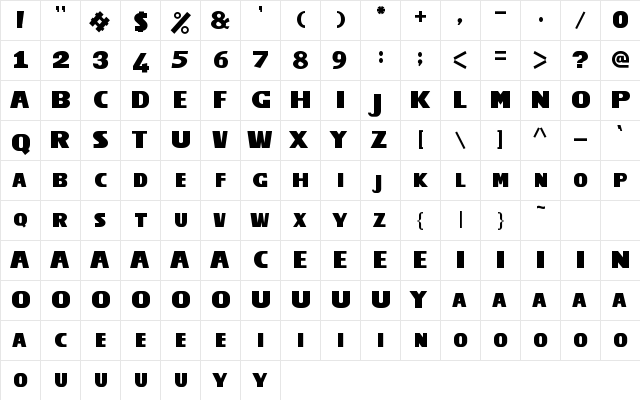
Tegal Regular Font Preview
Tegal Regular
Tegal Regular Font Details
| Foundry | Takezo |
| Designer | Omaikraf Studio |
Design Context for Tegal Typeface
Tegal offers clean, dependable letterforms without strong stylistic allegiance, making it a practical choice for designers who need flexibility.